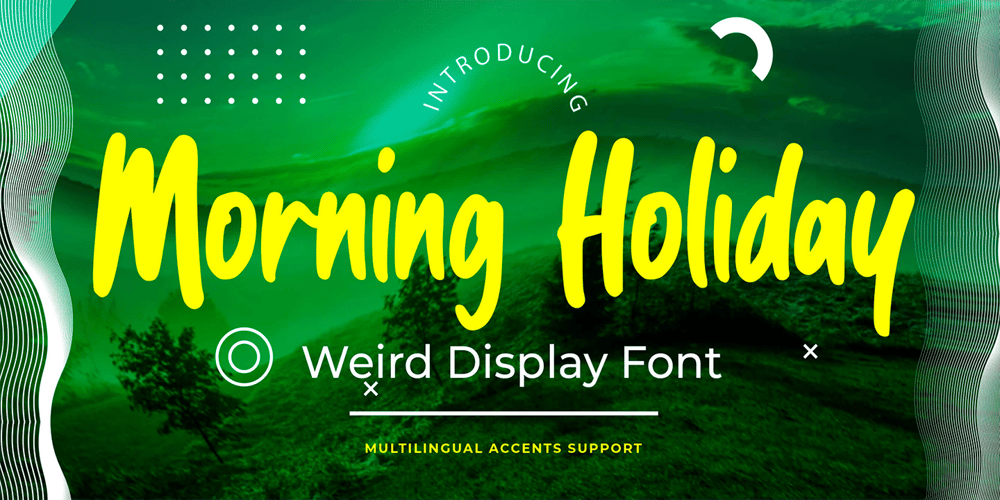
Morning Holiday Font Family was designed by Abdul Malik Wisnu, Anang Fibriyanto and published by Gassstype. Morning Holiday contains 1 styles and family package options. Here comes a New font, Introducing Morning Holiday It’s Weird Display Font is a Natural Style and Authentic classy style, this font is great for your creative projects such as watermark on photography, and perfect for logos & branding, invitation,advertisements,product designs, stationery, wedding designs,label ,product packaging, special events or anything that need handwritting taste.Morning Holiday is a natural Hand Drawn feel. It is perfect for any design project as Invitation,logo, book cover, craft or any design purposes,photos, photography overlays, signs, window art, scrapbooking, tags and so much more!It is perfect for any design project as Invitation,logo, book cover, craft or any design purposes.It also features a wealth of special features including You can activate 11 Ligatures OpenType panel.